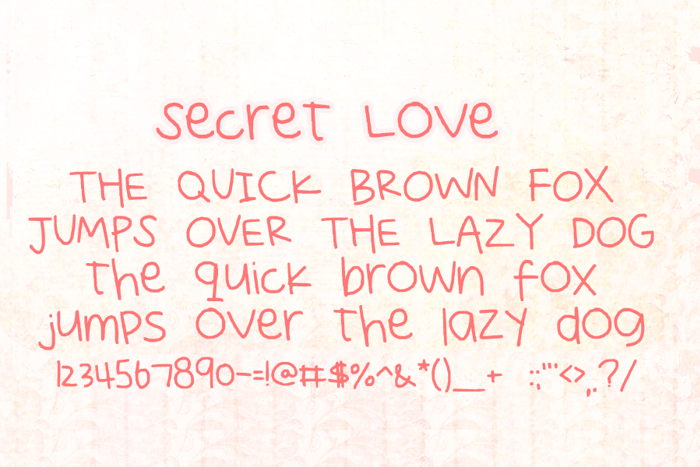
Secret Love Font
About Secret Love Font
My handwriting in thinner pen (:
This is an amazinq font! 😃
this is my favorite font like ever invented. 😄
i like this font 😄